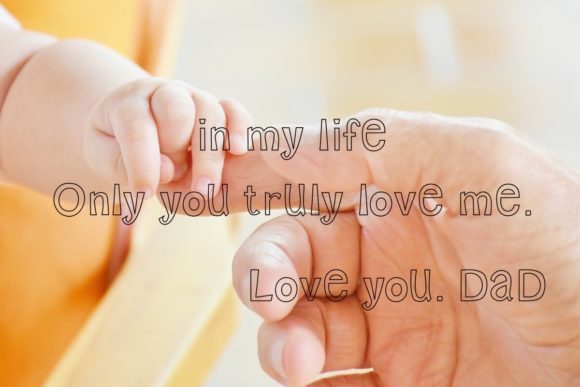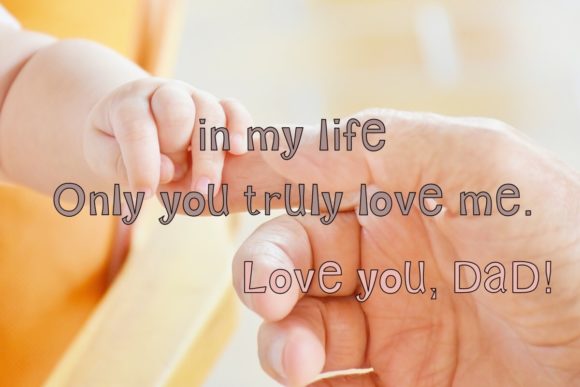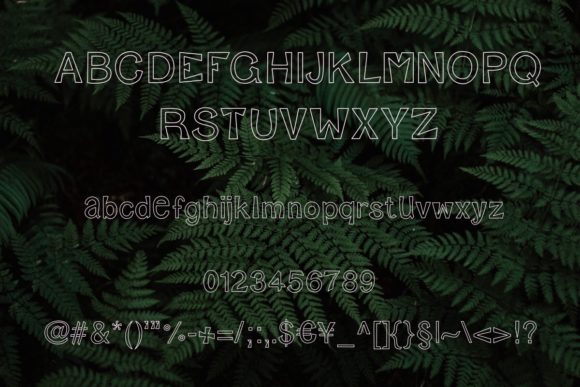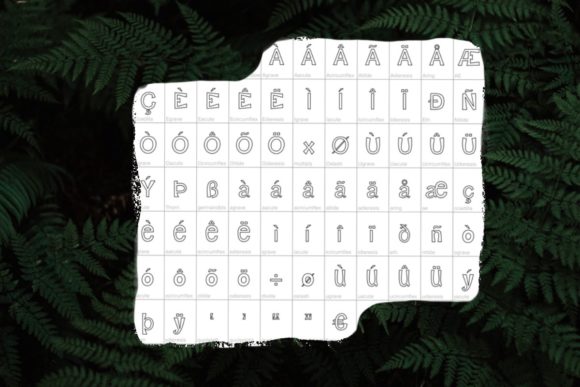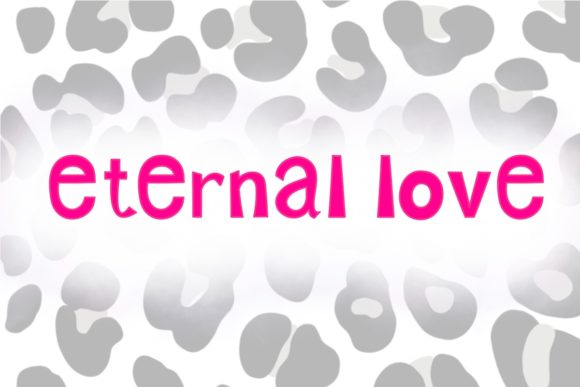
Eternal Love Font: Elevate Your Designs with a Touch of Elegance
In the world of design, fonts play a crucial role in conveying the intended message and aesthetic of a project. Whether you’re working on a poster, flyer, or print material, the right font can make all the difference. This is where Eternal Love Font comes into play – a neat and trendy outlined display font designed to enhance the quality of your designs.
What is Eternal Love Font?
Eternal Love Font is a modern, outlined display font that exudes elegance and sophistication. Its unique outline style gives it a distinctive look that’s perfect for designers and crafters looking to add a touch of romance and whimsy to their projects. The font’s clean lines and precise curves make it highly legible, ensuring that your message is conveyed clearly and effectively.
Key Features of Eternal Love Font
- Outlined Design: The font’s outlined style gives it a bold and eye-catching appearance, making it perfect for headlines, titles, and emphasis text.
- Neat and Trendy: Eternal Love Font boasts a modern and trendy look that’s sure to elevate your designs and make them stand out.
- High Legibility: The font’s clean lines and precise curves ensure that it’s highly legible, even at smaller sizes.
- Versatile: Eternal Love Font is suitable for a wide range of design projects, including posters, flyers, prints, and more.
Use Cases for Eternal Love Font
Eternal Love Font is an incredibly versatile font that can be used in various design projects. Here are some use cases to get you started:
- Posters: Use Eternal Love Font as a headline font to grab attention and draw the viewer’s eye.
- Flyers: Add a touch of elegance to your flyers with Eternal Love Font, perfect for promoting events, products, or services.
- Prints: Enhance the quality of your print materials, such as brochures, business cards, and letterheads, with this beautiful font.
- Digital Art: Incorporate Eternal Love Font into your digital art projects, such as illustrations, graphics, and social media graphics.
Tips for Using Eternal Love Font
To get the most out of Eternal Love Font, here are some tips to keep in mind:
- Pair with a Serif Font: Combine Eternal Love Font with a serif font for a classic and sophisticated look.
- Experiment with Colors: Play around with different colors to find the perfect combination that matches your brand’s aesthetic.
- Use for Headlines: Take advantage of Eternal Love Font’s bold and eye-catching design by using it for headlines and titles.
Eternal Love Font is a stunning outlined display font that’s perfect for designers and crafters looking to add a touch of elegance to their projects. With its neat and trendy design, high legibility, and versatility, this font is sure to elevate the quality of your posters, flyers, prints, and more. So why wait? Give Eternal Love Font a try today and take your designs to the next level!